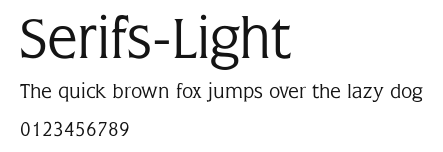
About Serifs-Light.ttf
Serifs-Light.ttf is a modern, elegant sans-serif font designed for ultimate readability and visual harmony. Perfect for branding, headlines, web design, and print materials.